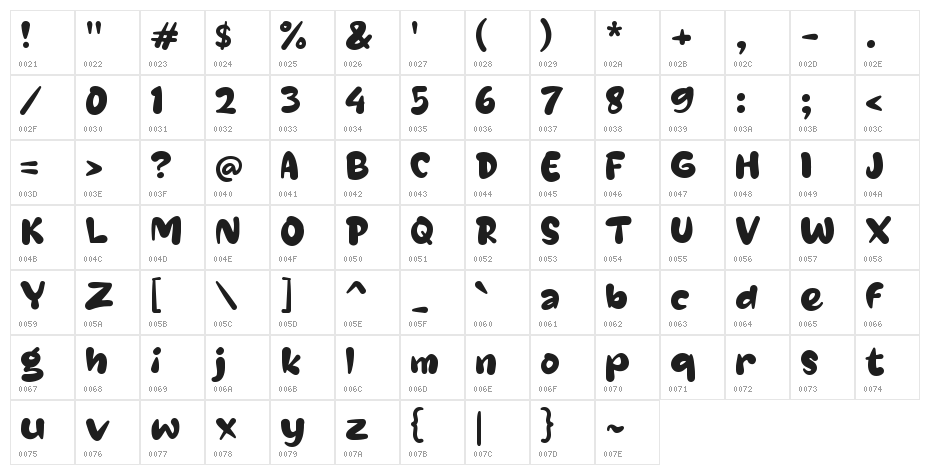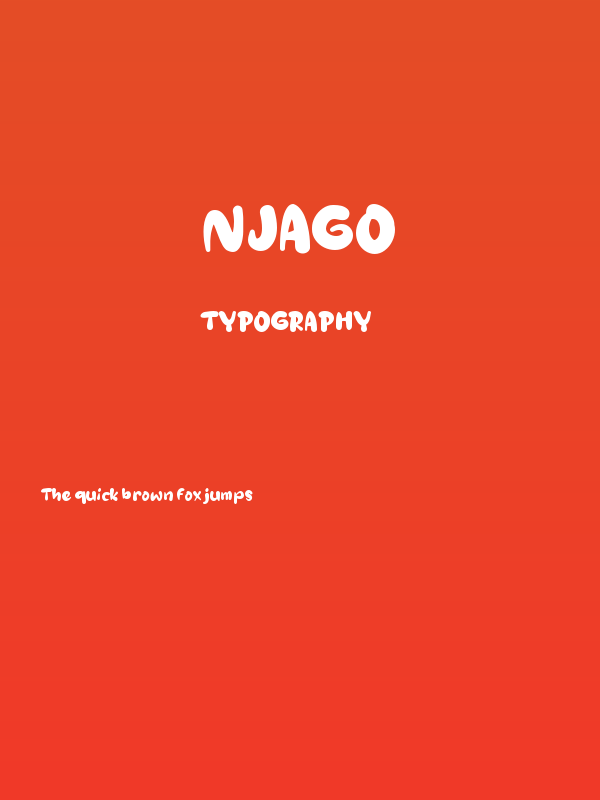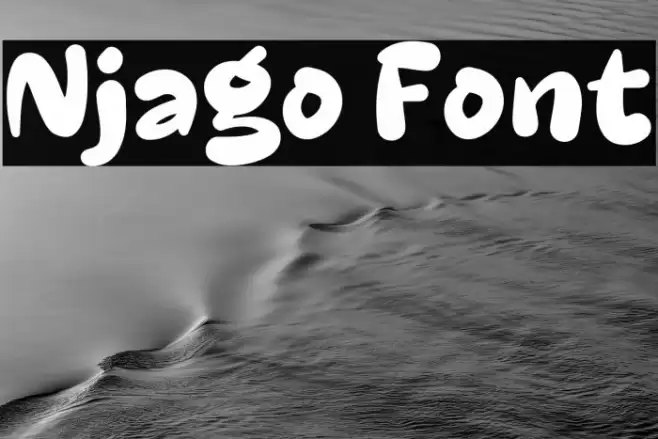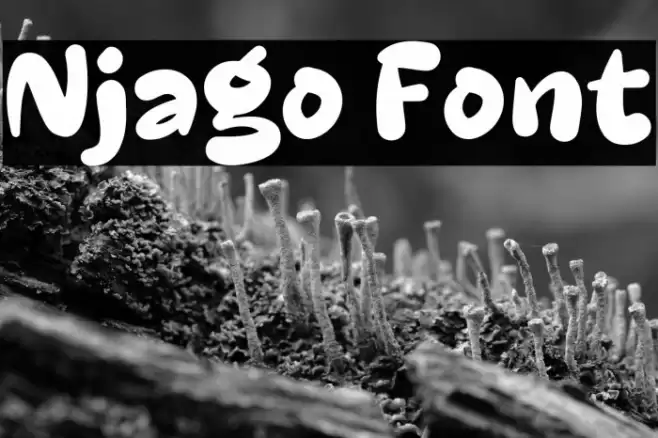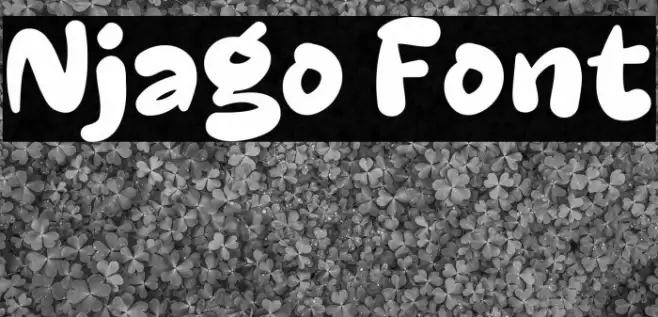
Njago Font
Njago Description
A playful, rounded, bold display font with a casual and friendly appearance.
| Overall Style | Playful, Casual, Friendly |
| Use Case | Headlines, Posters, Logos, Branding |